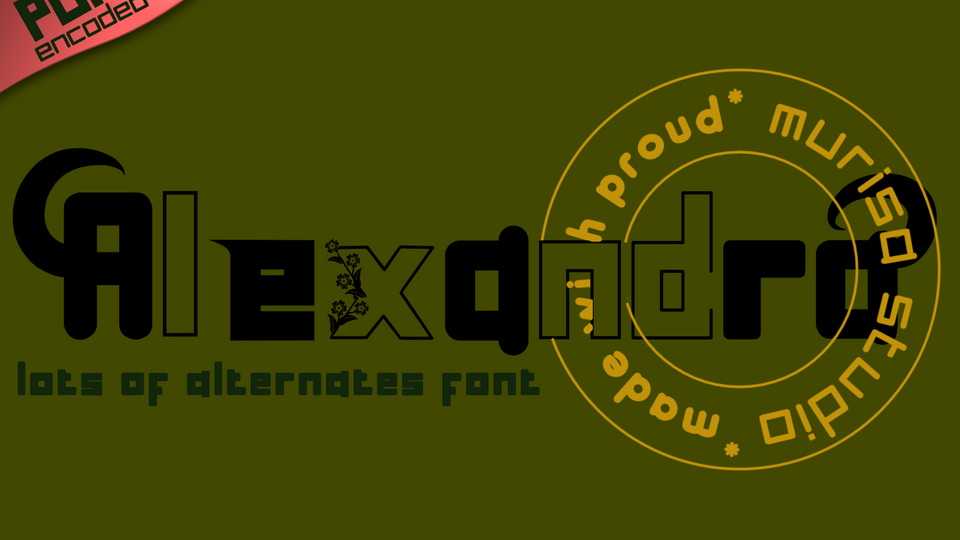
Download Alexandra font, a perfect sans serif typeface combining a strong font style with a beautiful and charming calligraphy style,
Designer: Murisa Studio